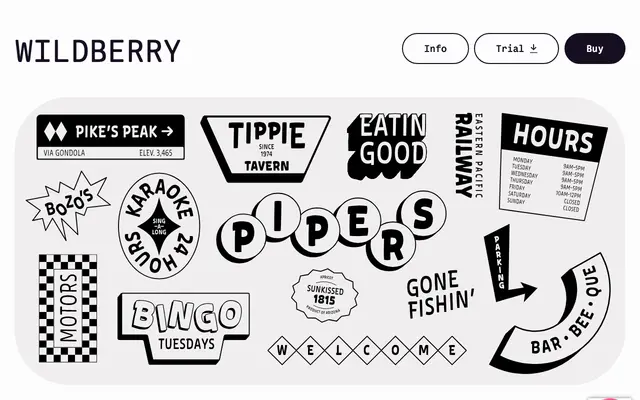
Wildberry
Vectro · Travis Kochel · 2018
A variable display typeface drawn from the hand-lettered signage of U.S. National Wilderness areas, refined for consistency without losing its brushy character.
Rooted in the brushy lettering of American wilderness signage, Wildberry captures the energy and playfulness of its source while smoothing out the inconsistencies typical of hand-drawn originals. Joins have been opened slightly to even out colour distribution, and a more consistent, subtly reversed contrast system gives the face a coherent typographic logic. A variable weight axis runs from 100 to 900, allowing fine control across five named stops from Light to Heavy.
Derived from brushy hand-lettered signage found on U.S. National Wilderness areas, Wildberry is a display typeface with the informal energy of brush lettering, slightly reversed contrast, and a playful, organic character.